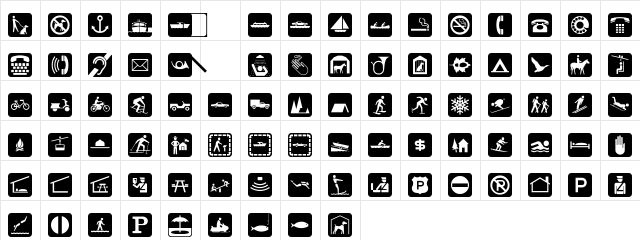
PIXymbolsTravelBlack-Italic Medium Italic Font Preview
PIXymbolsTravelBlack-Italic Medium Italic
PIXymbolsTravelBlack-Italic Medium Italic Font Details
Design Context for PIXymbolsTravelBlack-Italic Typeface
PIXymbolsTravelBlack-Italic takes a measured approach to typography — its balanced proportions and neutral character make it a reliable workhorse for both digital and print work. The slanted form adds forward momentum and visual energy.